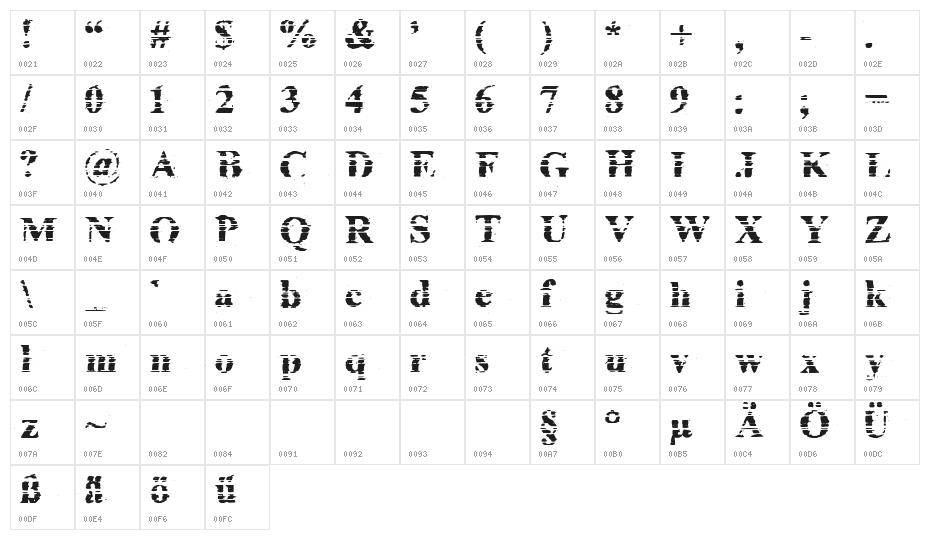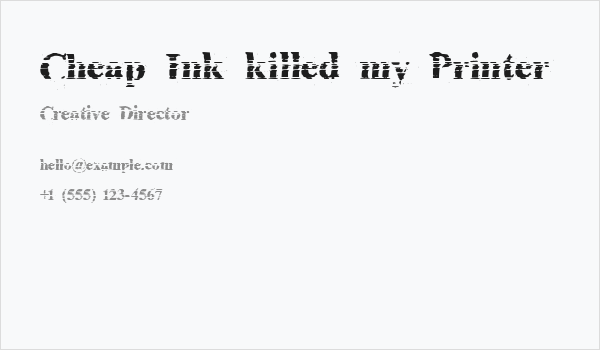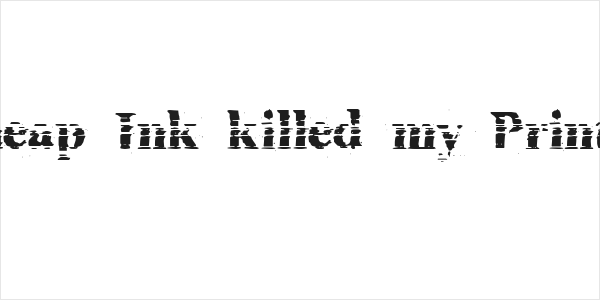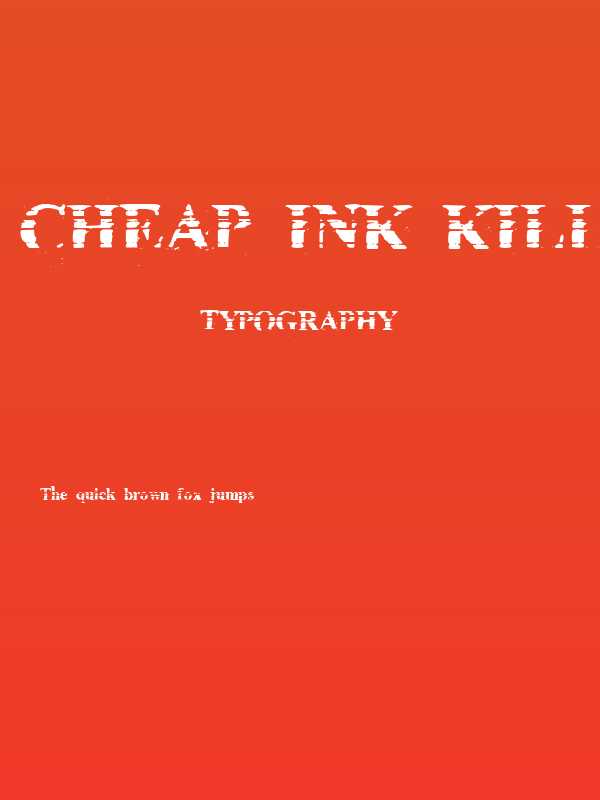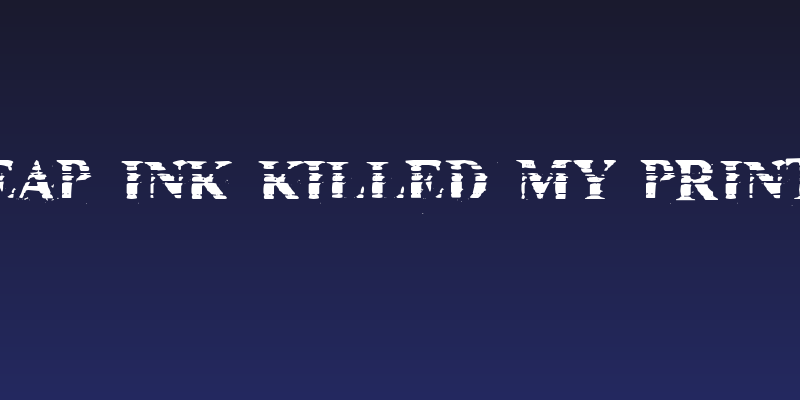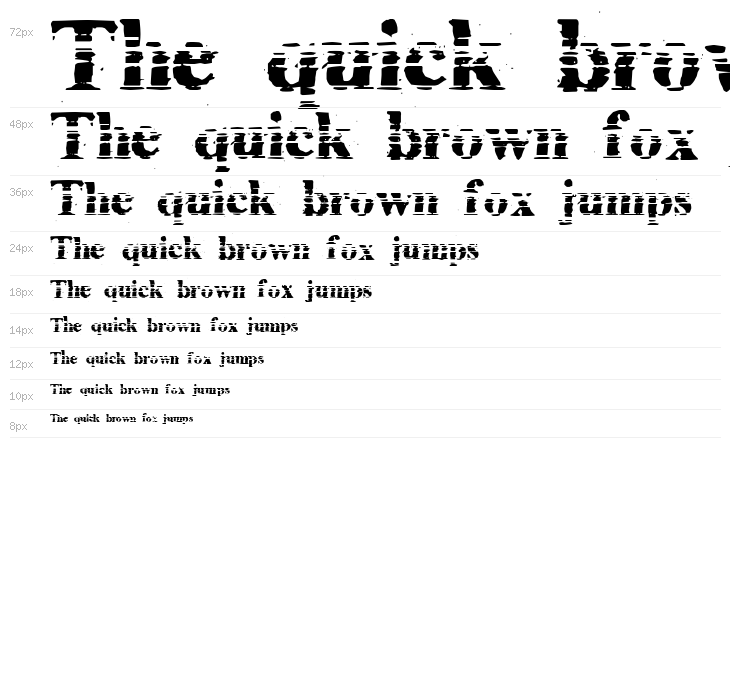
Cheap Ink killed my Printer Font
This font features a distressed, grunge style with a stencil-like appearance. The characters are bold and heavily textured, giving the impression of wear and tear, as if printed with a malfunctioning printer. The uppercase and lowercase letters maintain a consistent style, with jagged edges and irregular gaps that add to the chaotic aesthetic. Numbers and special characters follow the same design, ensuring uniformity across all glyphs. The font's unique appearance makes it stand out, ideal for projects that require a raw, edgy look.
Overall StyleGrunge, Urban
Proposed ProjectsIdeal for album covers, street art designs, posters, and any project needing a gritty, urban feel.